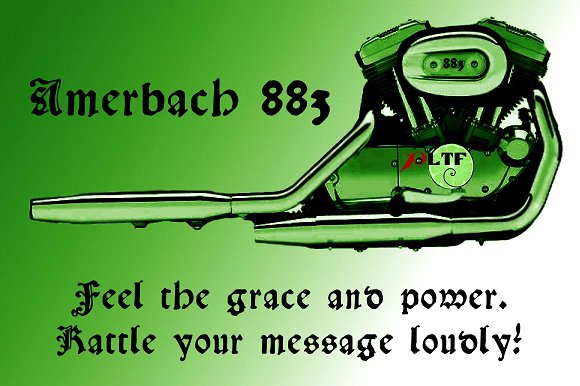
Discover the Timeless Charm of Amerbach 883 Font
Are you a designer or crafter looking for a unique and captivating font to add to your collection? Look no further than the Amerbach 883 font, a stunning combination of majuscules and miniscules that will transport you back in time to the world of 15th-century typography.
The Story Behind Amerbach 883
The Amerbach 883 font is named after Johann Amerbach, a renowned printer from Basel, Switzerland, who was active in the late 15th and early 16th centuries. During his 35-year career, Amerbach established an extensive network of scholars and produced over 100 works, many of which were devoted to the church fathers. He is also notable for promoting the use of Antiqua fonts in German-speaking lands, playing a significant role in shaping the typographic landscape of the time.
A Unique Blend of Elegance and Friendliness
Amerbach 883 is characterized by its striking contrast between the majuscules and miniscules. The uppercase letters are intricately cut with elegant flourishes, evoking a sense of luxury and sophistication. In contrast, the lowercase letters are subtly more rounded and friendly, making them perfect for body text and longer passages. This harmonious blend of styles creates a visually appealing effect that will add a touch of refinement to any design or craft project.
Key Features of Amerbach 883 Font
- Unique blend of majuscules and miniscules: The combination of elegant uppercase letters and friendly lowercase letters creates a distinctive look that sets Amerbach 883 apart from other blackletter typefaces.
- Intricate details: The font features intricate cuttings and flourishes, adding to its luxurious and sophisticated feel.
- Antiqua influence: As a nod to Amerbach’s role in promoting Antiqua fonts, this typeface incorporates elements of this classic style, making it perfect for designs that require a touch of classic elegance.
- Highly legible: Despite its ornate nature, Amerbach 883 remains highly legible, making it suitable for use in a variety of applications, from headings and titles to body text.
Using Amerbach 883 in Design and Crafting
Amerbach 883 is a versatile font that can be used in a wide range of design and crafting projects, including:
- Typography posters and prints: Showcase the font’s elegant majuscules and friendly miniscules in eye-catching posters and prints.
- Stationery and invitations: Add a touch of sophistication to your stationery, invitations, and greeting cards with this beautiful font.
- Book design and publishing: Use Amerbach 883 to create stunning book covers, title pages, and interior designs that pay homage to the art of traditional printing.
- Crafting and DIY projects: Incorporate this font into your crafting and DIY projects, such as handmade cards, scrapbooking, and paper crafting.
In conclusion, the Amerbach 883 font is a true treasure for designers and crafters seeking a unique and captivating typeface. With its elegant majuscules, friendly miniscules, and rich history, this font is sure to add a touch of timeless charm to any project. Whether you’re looking to create stunning typography posters, elegant stationery, or beautiful book designs, Amerbach 883 is an excellent choice. So why not explore the world of 15th-century typography and discover the beauty of Amerbach 883 for yourself?